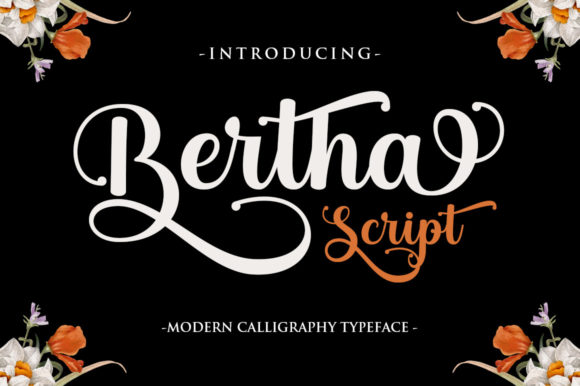
Bertha Script Font: The Elegant and Charming Choice for Your Designs
When it comes to choosing the right font for your design project, it can be overwhelming with the numerous options available. However, if you’re looking for a font that exudes elegance and charm, look no further than the Bertha Script Font. This beautiful font is perfect for adding a handwritten touch to your designs, making it ideal for wedding invitations, thank you cards, quotes, greeting cards, logos, business cards, and more.
What Makes Bertha Script Font So Special?
Bertha Script Font is a stunning script font that feels equally charming and elegant. Its unique and beautiful design makes it perfect for a variety of design projects, from romantic wedding invitations to elegant business cards. The font’s handwritten style gives it a personal and intimate feel, making it perfect for designs that require a touch of warmth and personality.
Key Features of Bertha Script Font
- Elegant and Charming Design: Bertha Script Font has a beautiful and elegant design that makes it perfect for designs that require a touch of sophistication.
- Handwritten Style: The font’s handwritten style gives it a personal and intimate feel, making it perfect for designs that require a touch of warmth and personality.
- PUA Encoded: Bertha Script Font is PUA encoded, which means you can access all of the glyphs and swashes with ease.
- Multilingual Support: The font supports multiple languages, making it perfect for designs that require a global reach.
10 Creative Ways to Use Bertha Script Font
Bertha Script Font is a versatile font that can be used in a variety of design projects. Here are 10 creative ways to use this beautiful font:
- Wedding Invitations: Bertha Script Font is perfect for wedding invitations, adding a touch of elegance and romance to your design.
- Thank You Cards: The font’s handwritten style makes it perfect for thank you cards, adding a personal and intimate touch to your design.
- Quotes: Bertha Script Font is perfect for quotes, adding a touch of elegance and sophistication to your design.
- Greeting Cards: The font’s charming design makes it perfect for greeting cards, adding a touch of warmth and personality to your design.
- Logos: Bertha Script Font can be used to create beautiful logos that exude elegance and sophistication.
- Business Cards: The font’s elegant design makes it perfect for business cards, adding a touch of professionalism and sophistication to your design.
- Social Media Graphics: Bertha Script Font can be used to create beautiful social media graphics that add a touch of elegance and charm to your design.
- Branding: The font’s unique design makes it perfect for branding, adding a touch of personality and warmth to your brand.
- Packaging Design: Bertha Script Font can be used in packaging design, adding a touch of elegance and sophistication to your product packaging.
- Stationery: The font’s handwritten style makes it perfect for stationery, adding a personal and intimate touch to your design.
The Benefits of Using Bertha Script Font
Bertha Script Font offers a range of benefits that make it the perfect choice for your design project. Here are some of the benefits of using this beautiful font:
- Unique Design: Bertha Script Font has a unique and beautiful design that makes it perfect for designs that require a touch of elegance and sophistication.
- Easy to Read: The font’s clear and elegant design makes it easy to read, even at small sizes.
- Versatile: Bertha Script Font is a versatile font that can be used in a variety of design projects, from wedding invitations to business cards.
- PUA Encoded: The font’s PUA encoding makes it easy to access all of the glyphs and swashes, giving you more creative freedom.
| Font Name | Bertha Script Font |
In conclusion, Bertha Script Font is a beautiful and elegant font that is perfect for designs that require a touch of sophistication and charm. Its unique design, handwritten style, and PUA encoding make it a versatile font that can be used in a variety of design projects. Whether you’re creating wedding invitations, thank you cards, quotes, greeting cards, logos, business cards, or any other design that requires a handwritten touch, Bertha Script Font is the perfect choice.